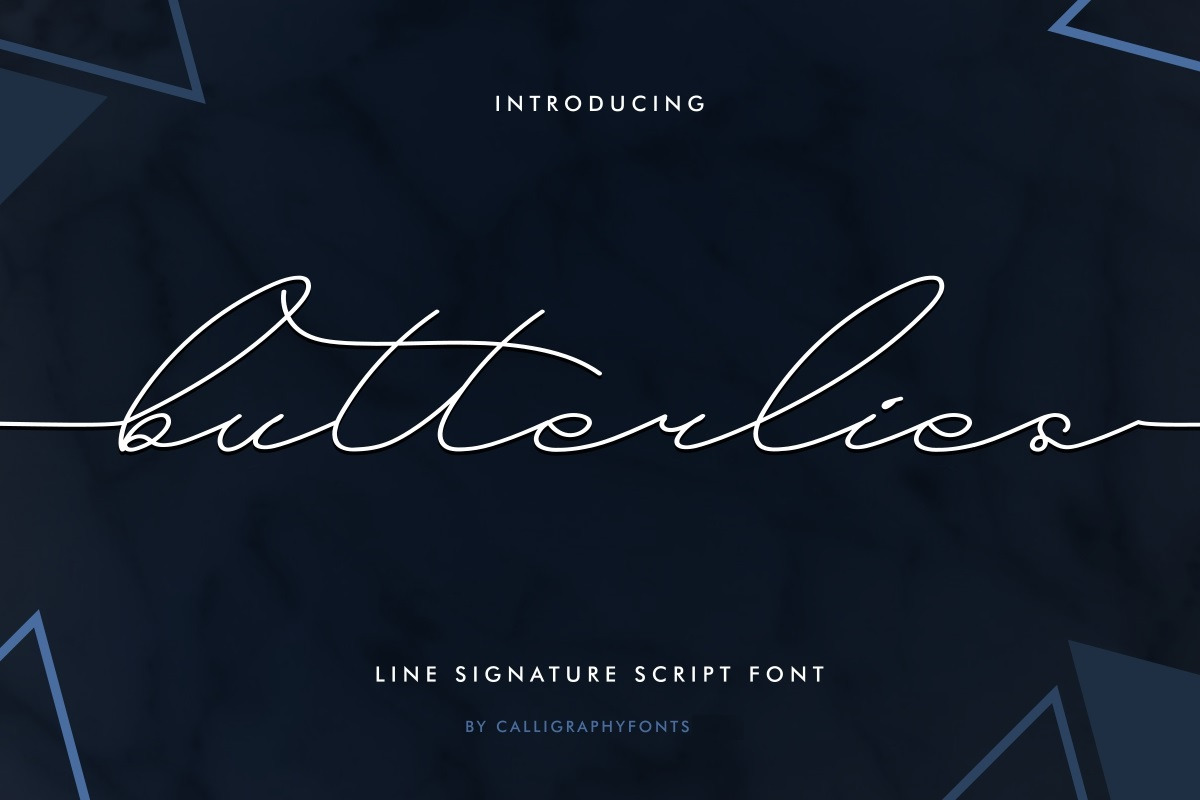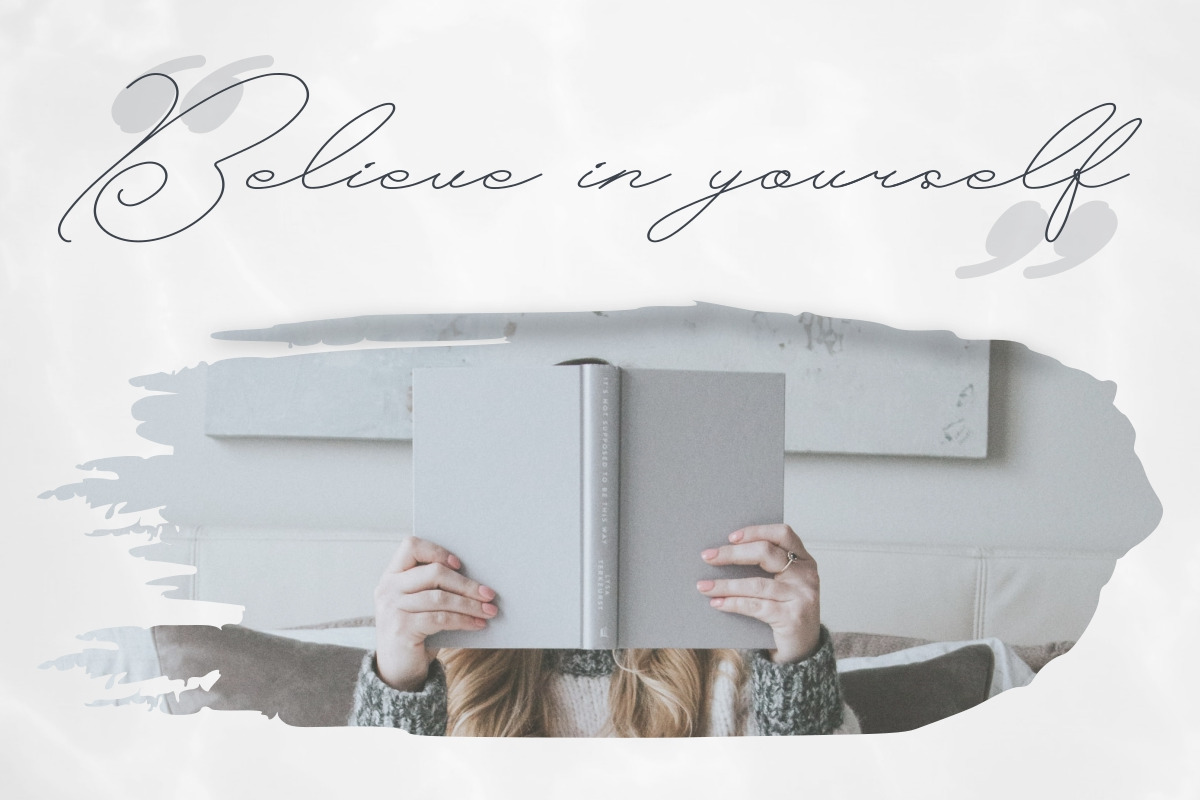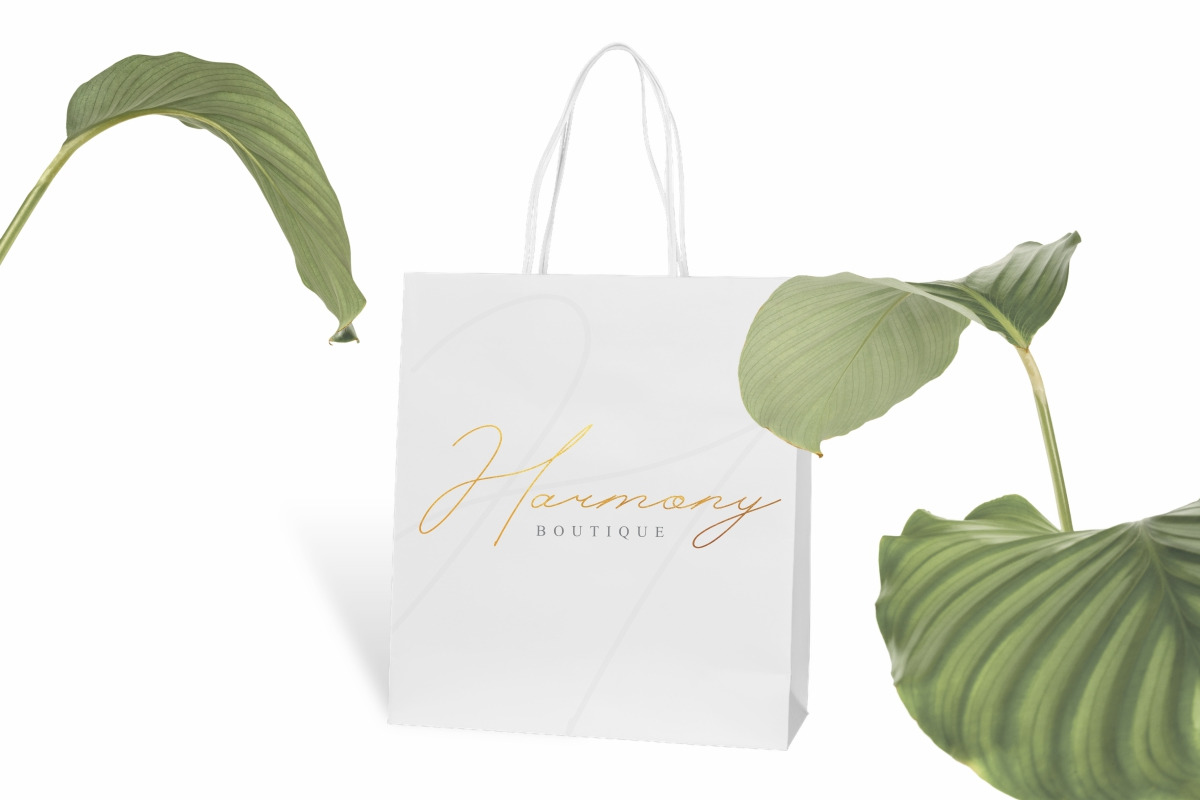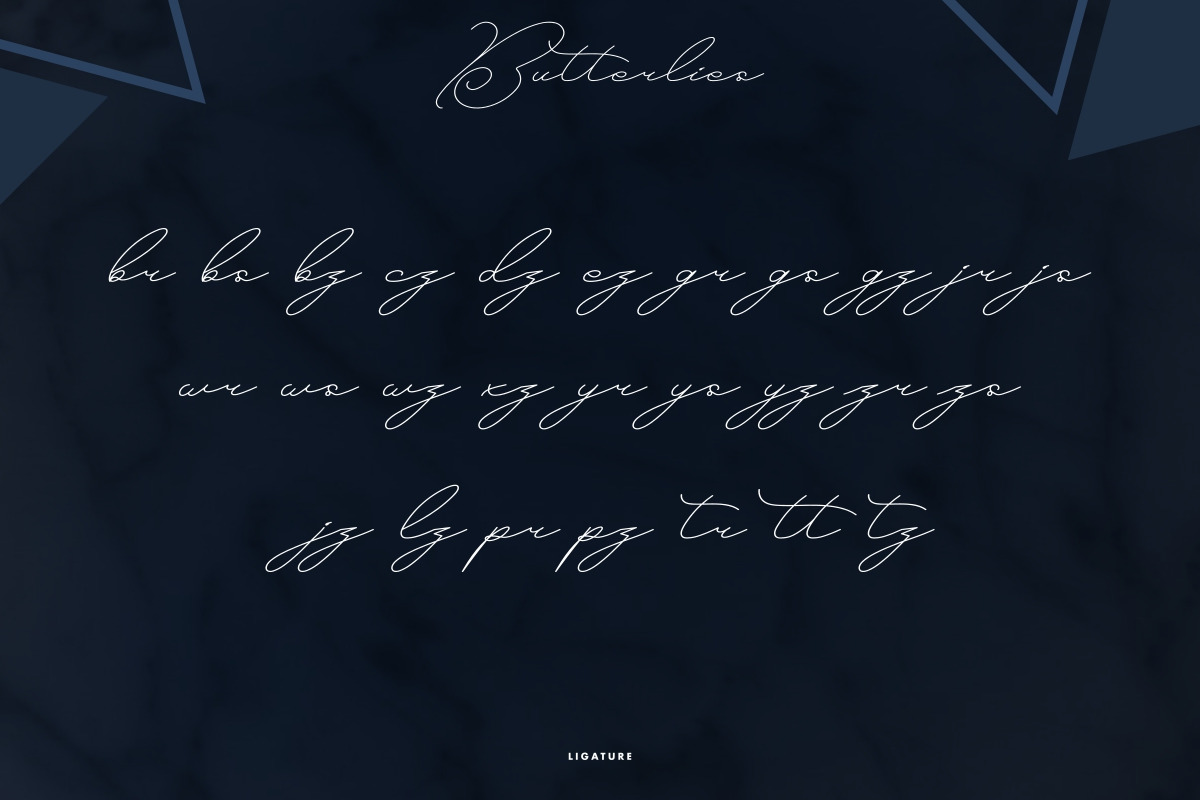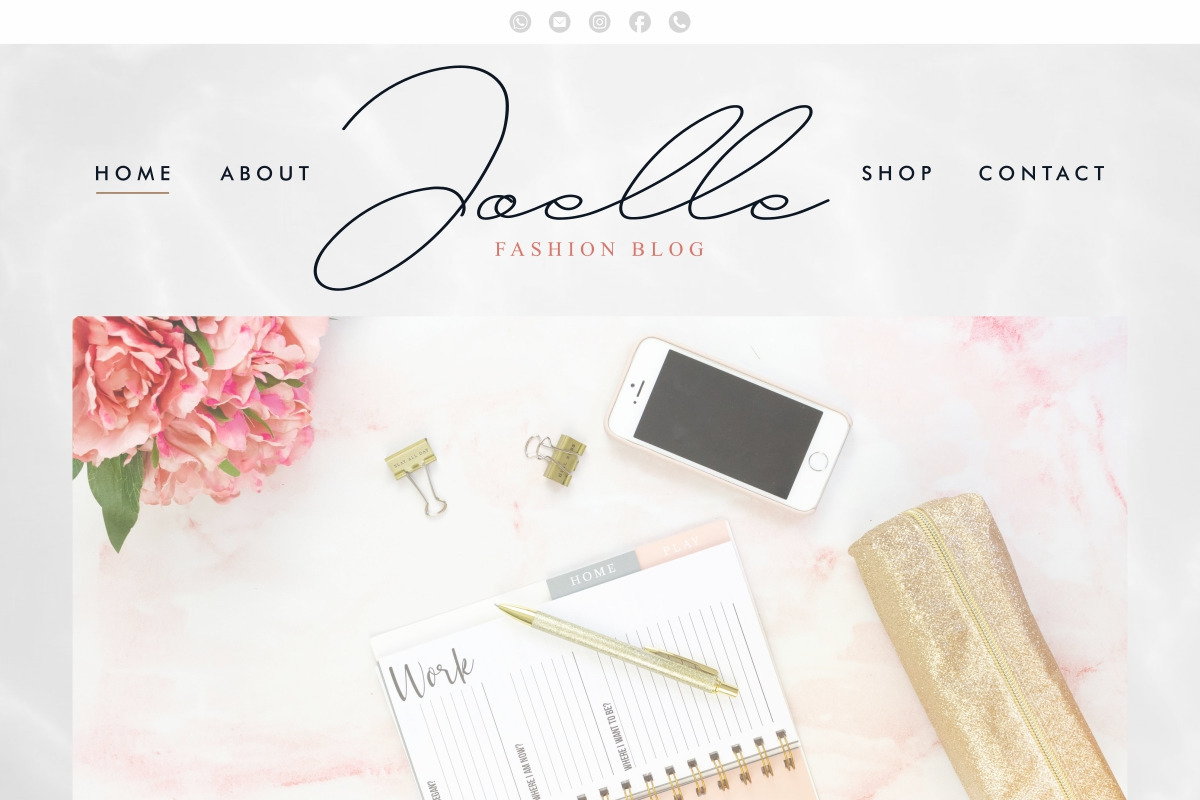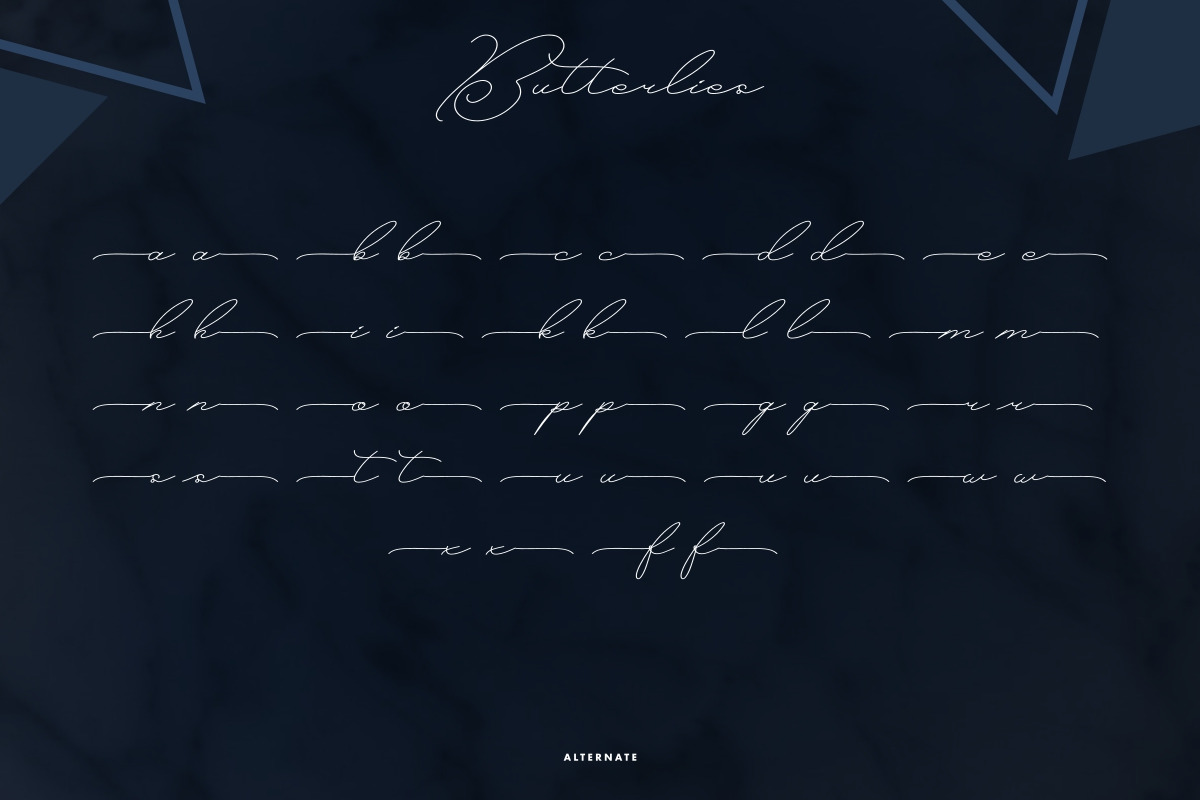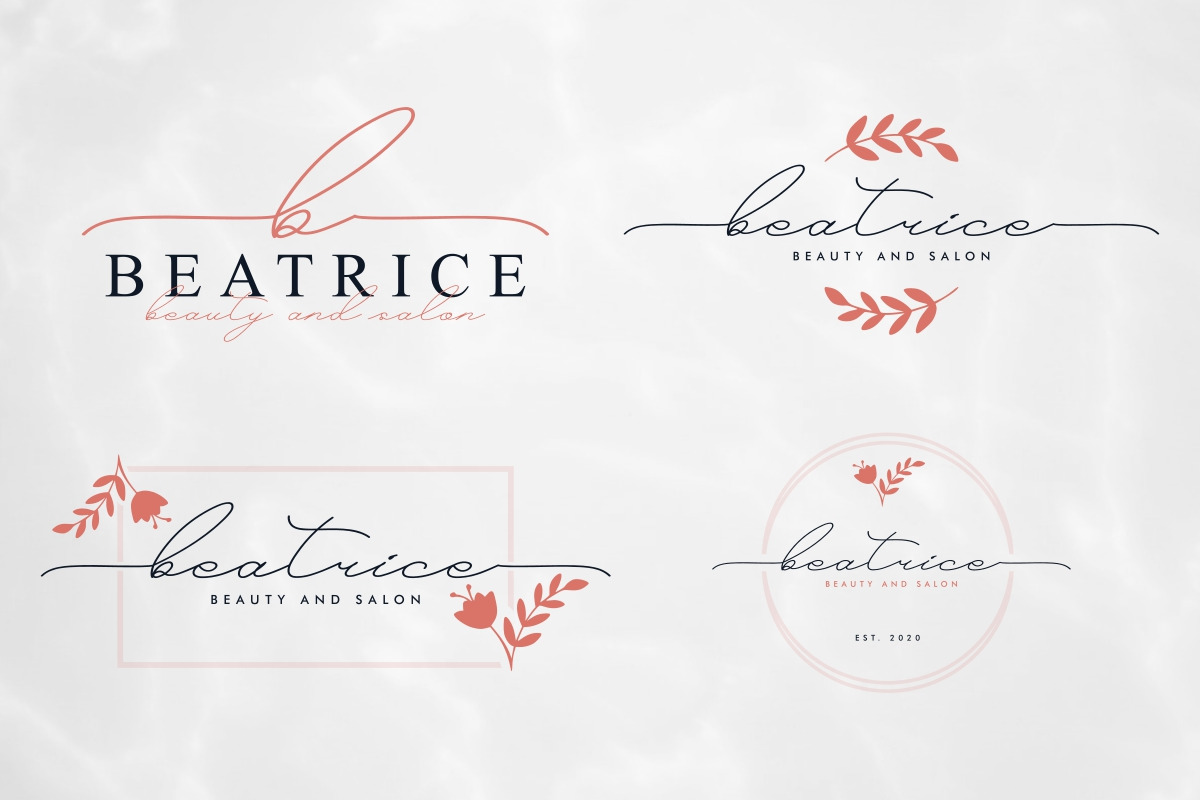
Butterlies Handwriting Script Font
Butterlies Font is is a monoline handwriting script Font with a unique original style. The theme of this font are casual, modern, elegant, luxury, handwritten, classic and simple lettering.